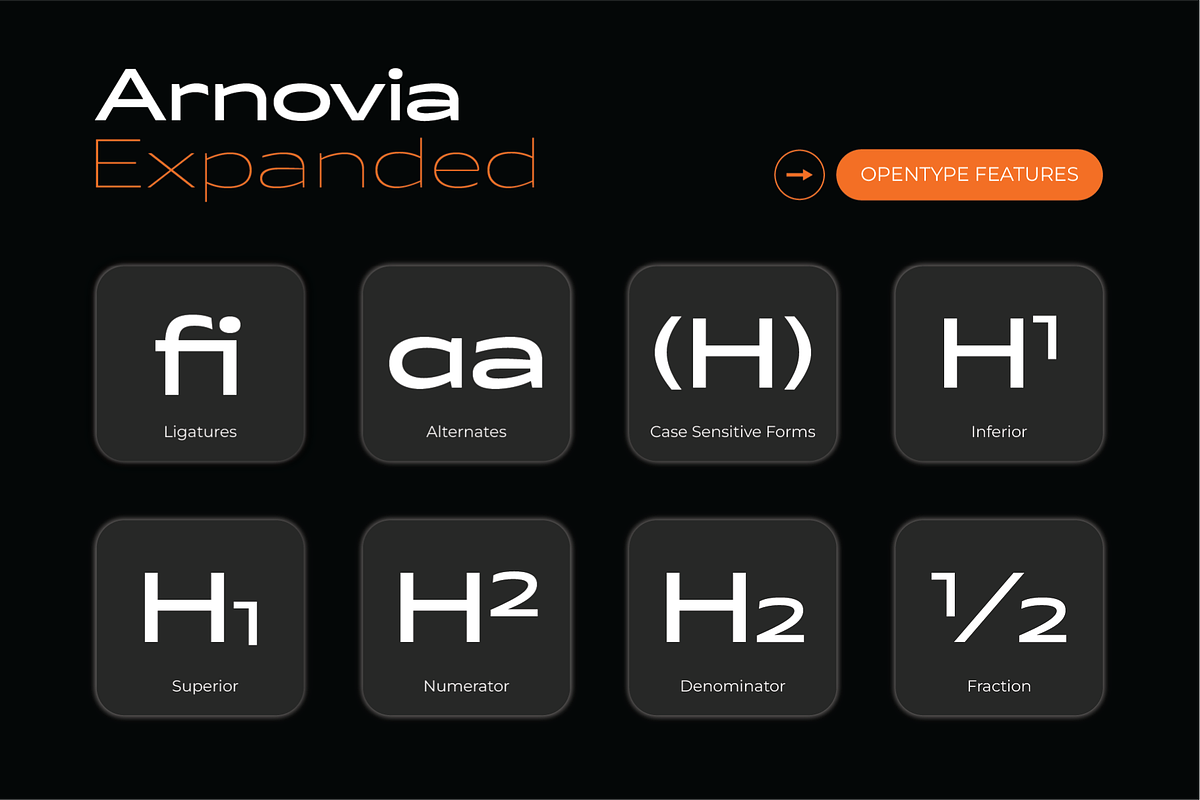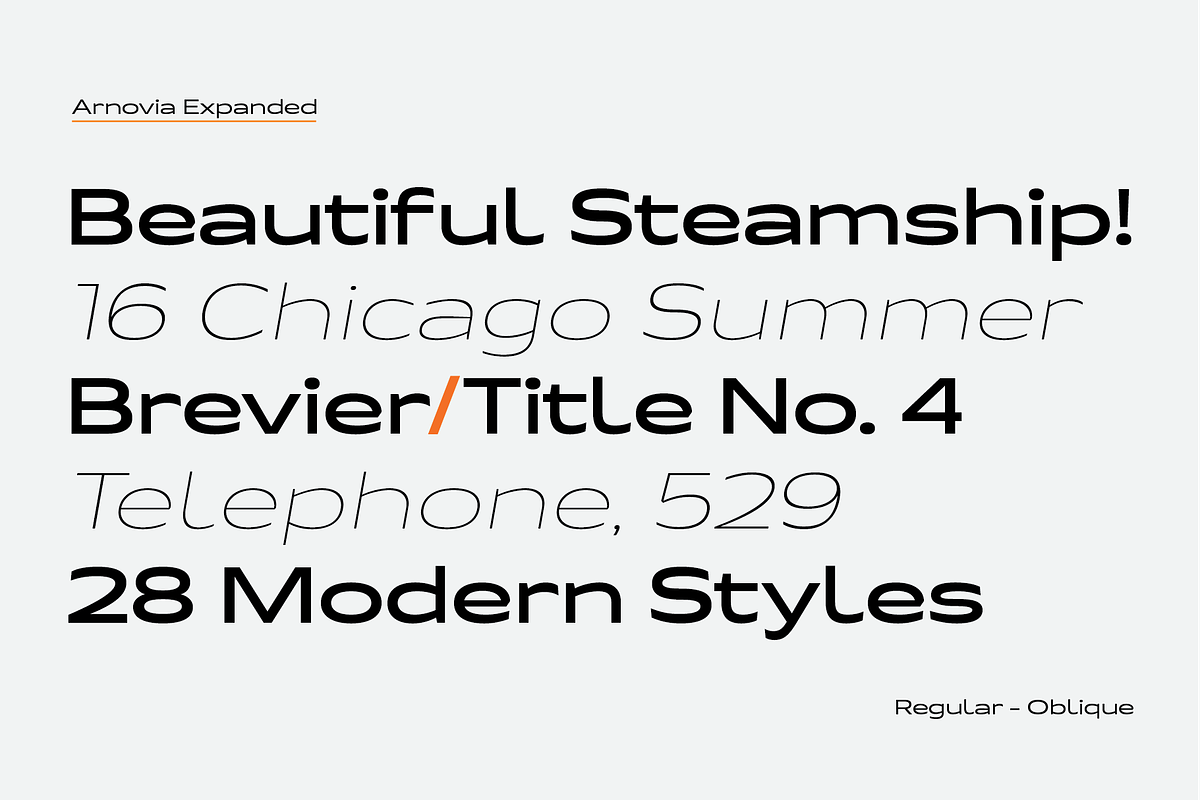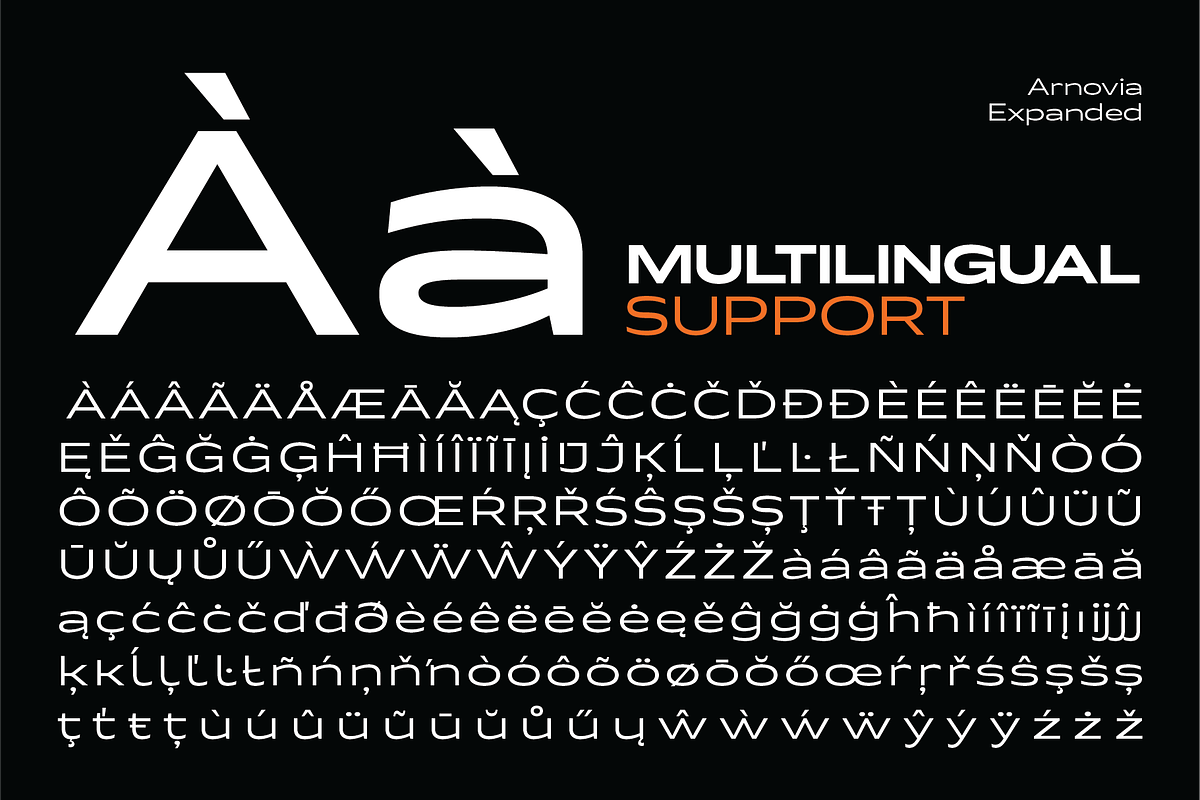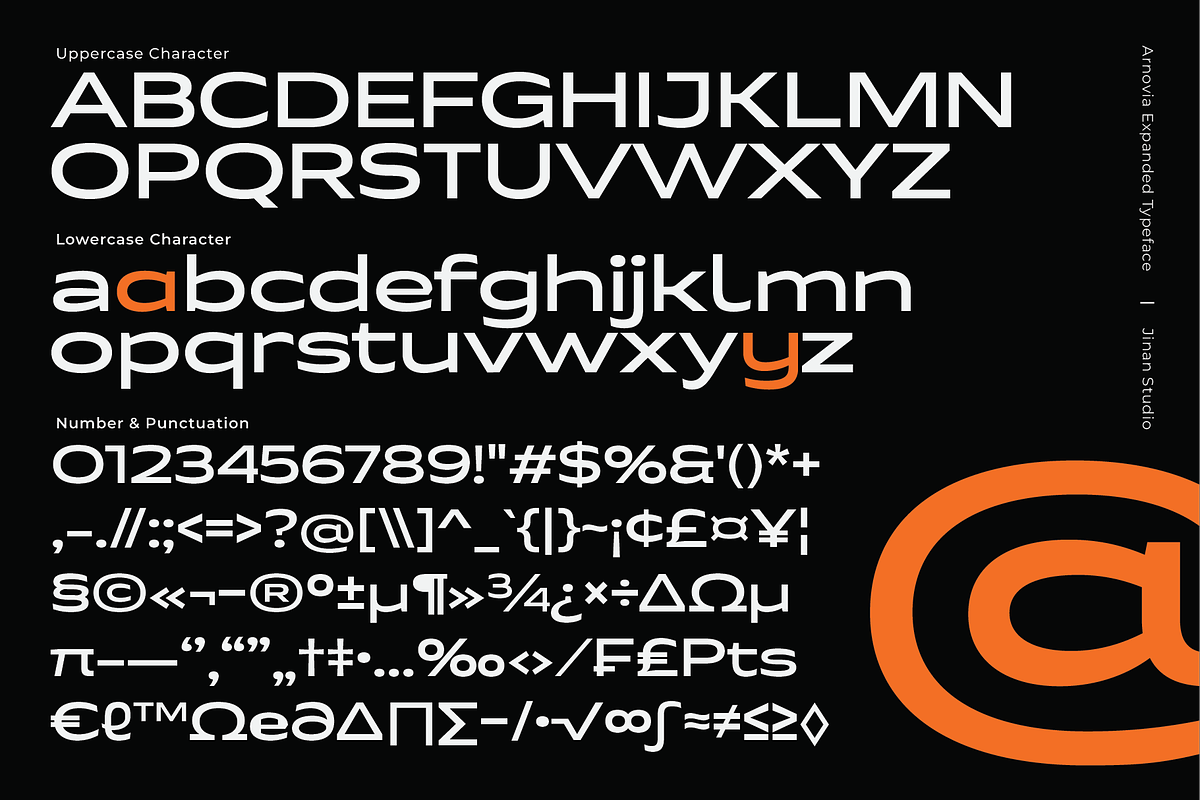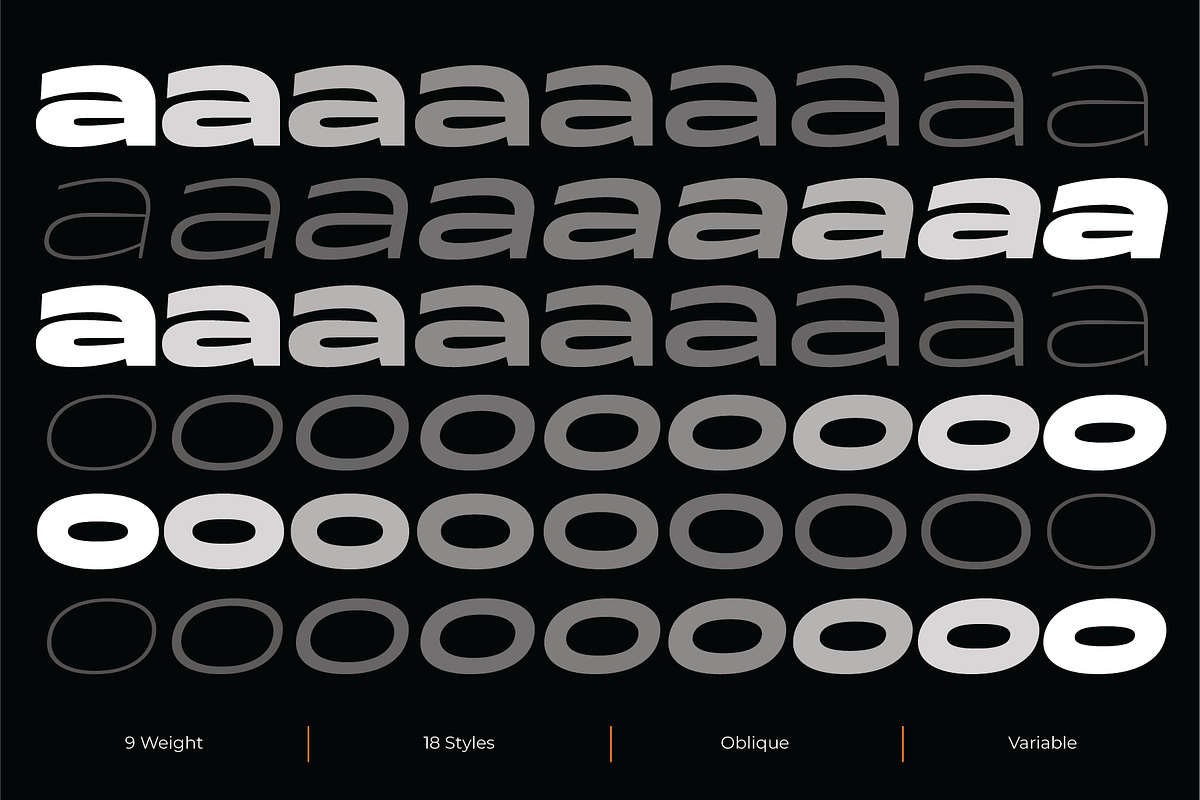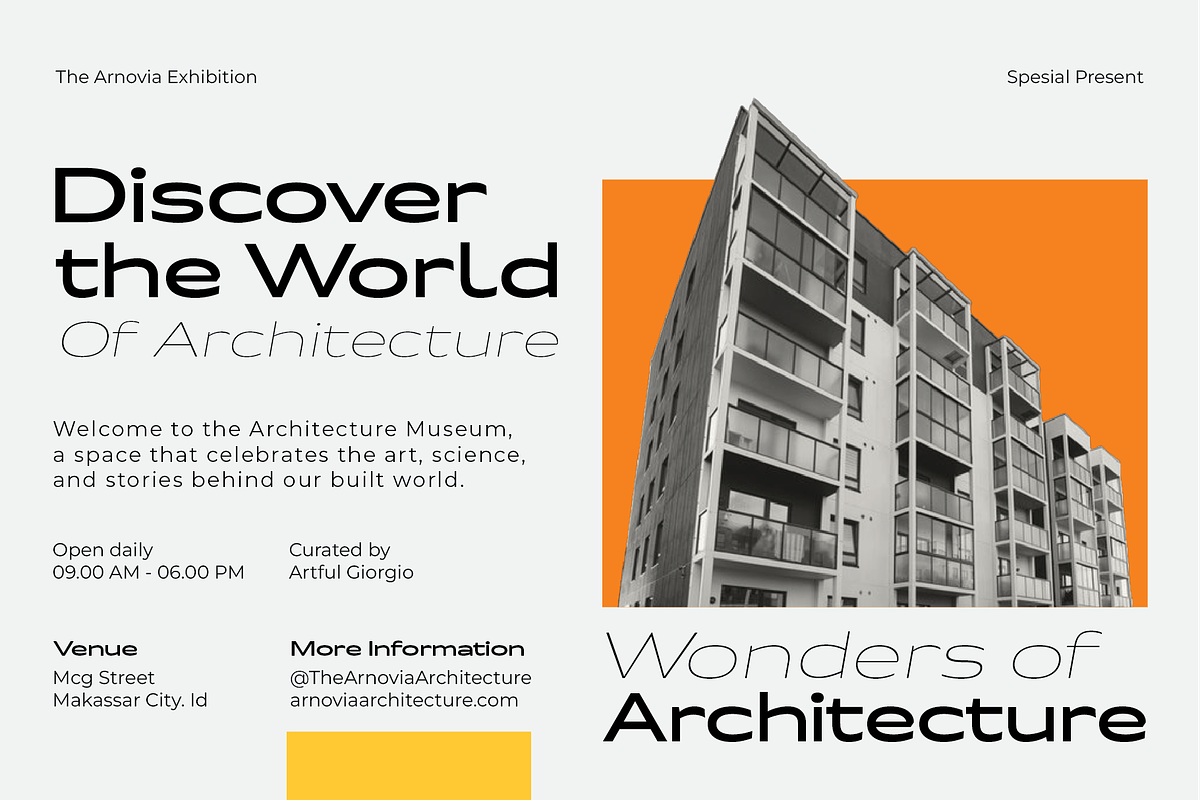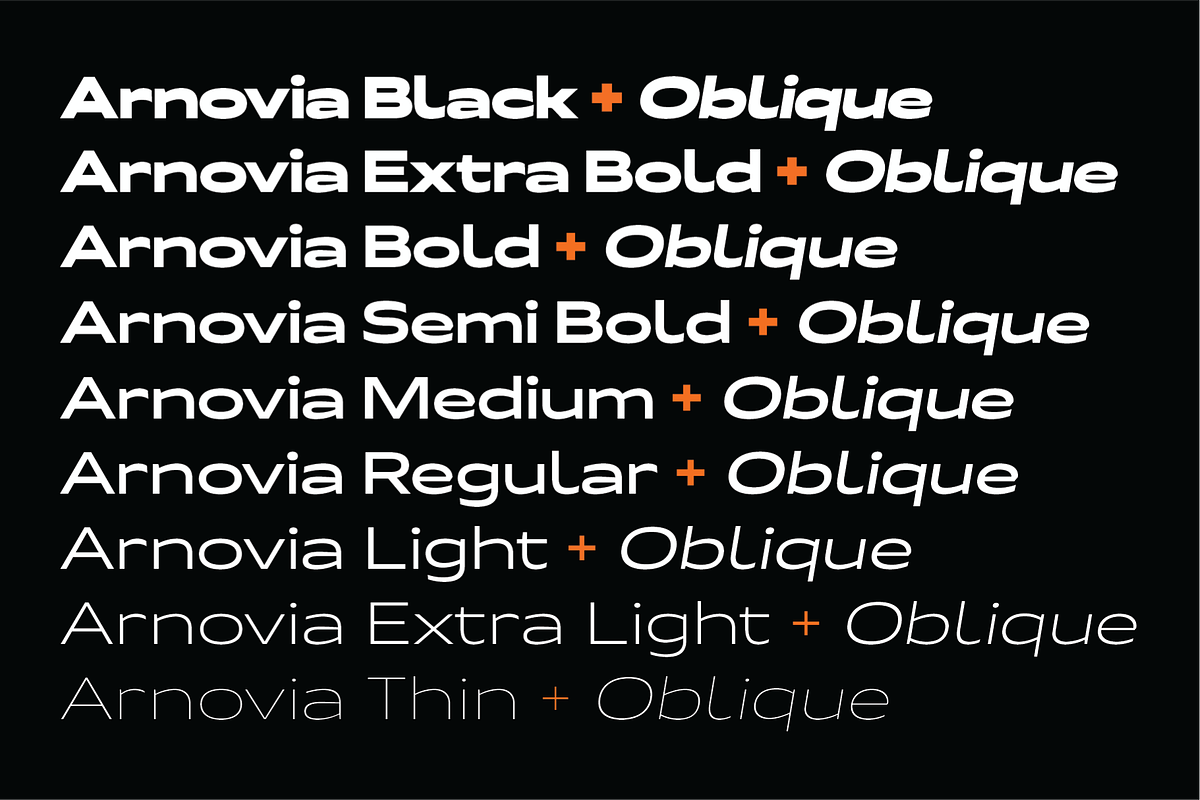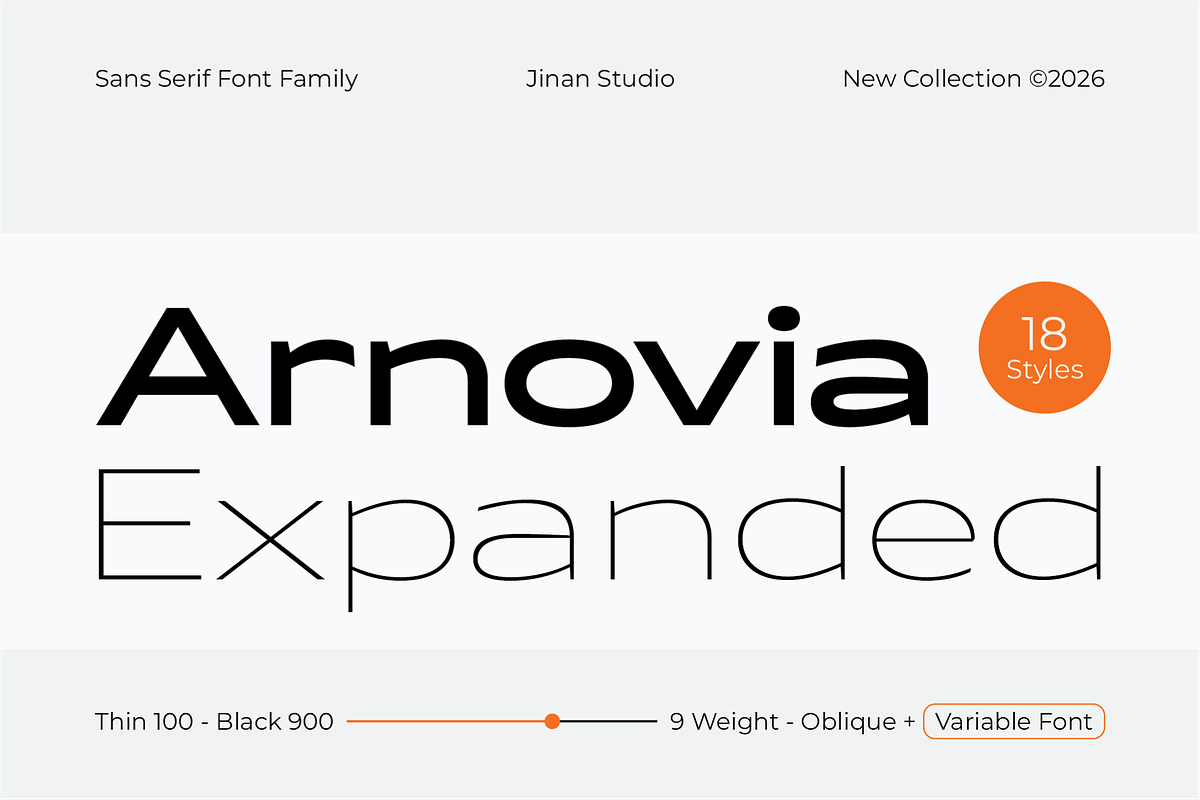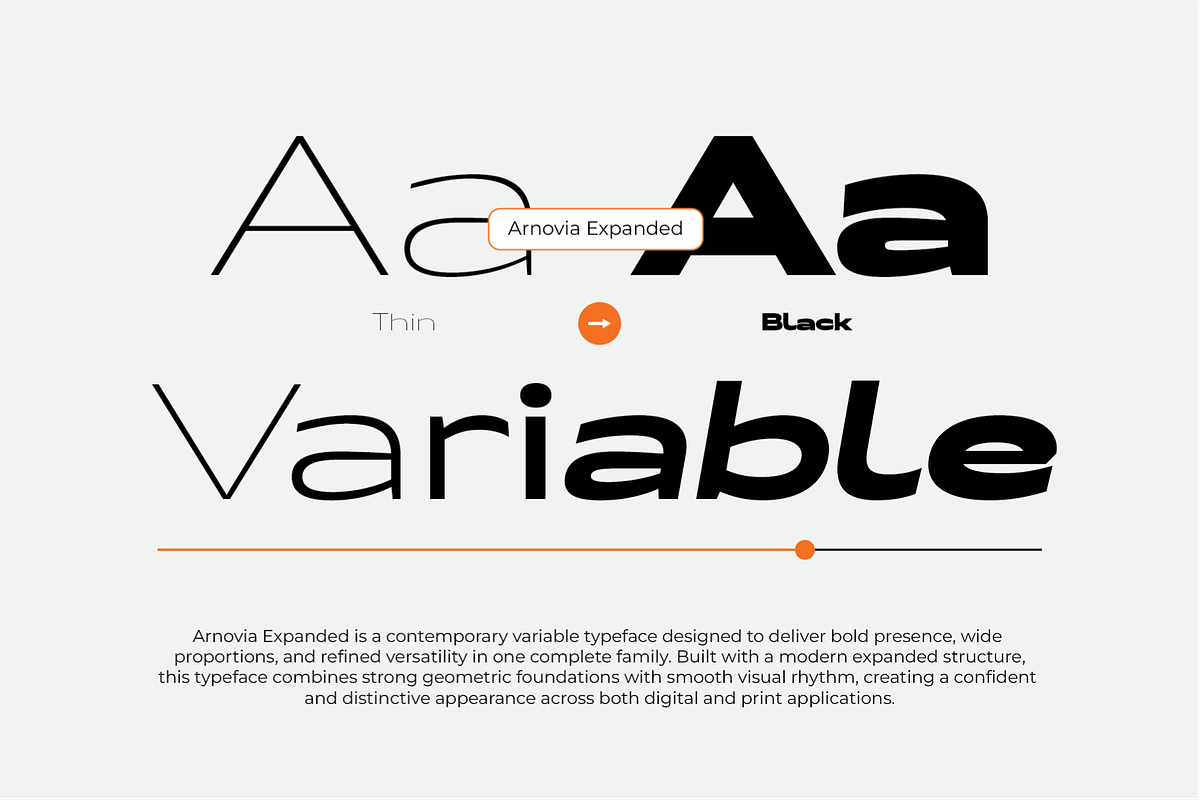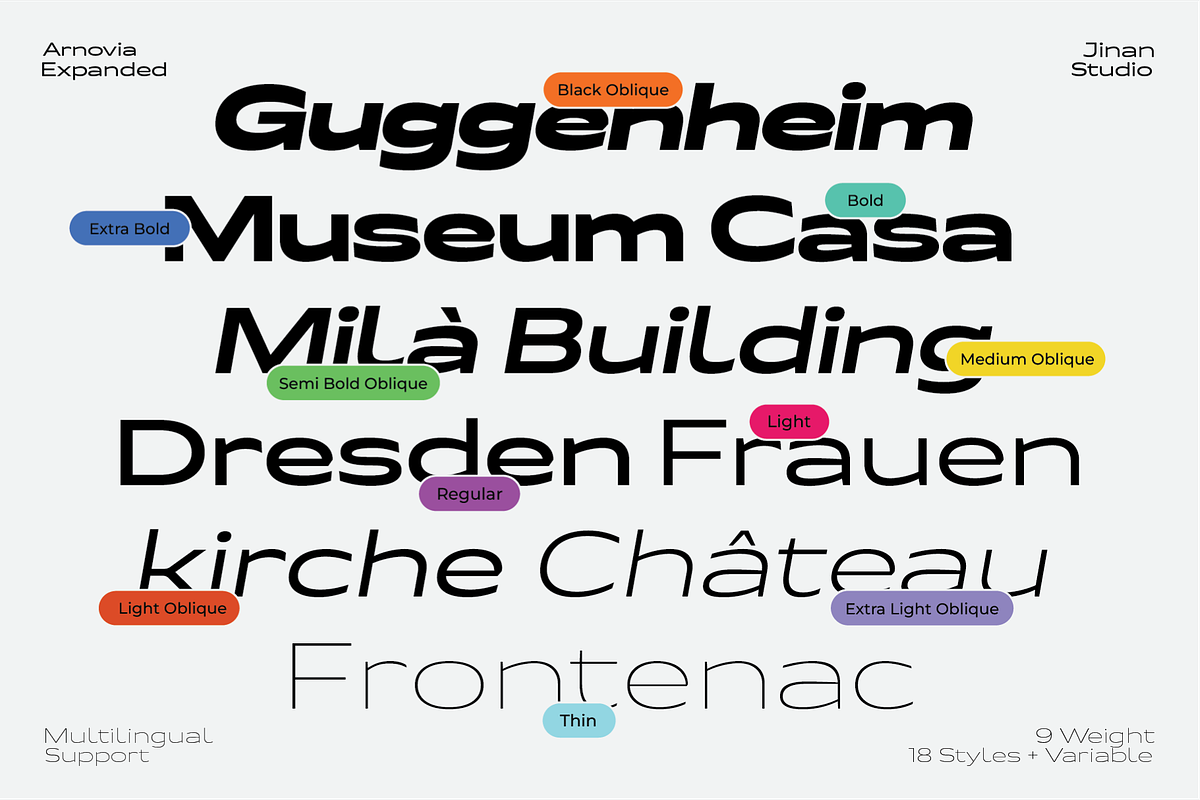
Arnovia Expanded
Arnovia Expanded is a contemporary variable typeface designed to deliver bold presence, wide proportions, and refined versatility in one complete family. Built with a modern expanded structure, this typeface combines strong geometric foundations with smooth visual rhythm, creating a confident and distinctive appearance across both digital and print applications.
Featuring 18 carefully crafted styles plus a fully functional Variable Font version, Arnovia Expanded offers extensive creative flexibility—from thin and elegant expressions to powerful and impactful heavy weights. The variable format allows seamless control across the weight range, enabling more precise typography and adaptive design workflows.
Designed for versatility and performance, Arnovia Expanded works beautifully for branding, logos, editorial layouts, packaging, posters, headlines, advertising, web design, social media visuals, sports themes, futuristic concepts, and contemporary visual identities.
Its expanded proportions create a spacious and premium feel while maintaining strong readability and balanced letterforms across all sizes.
A set of uppercase and lowercase glyphs
Number, symbol, and punctuation
Alternate
Oblique + Variable